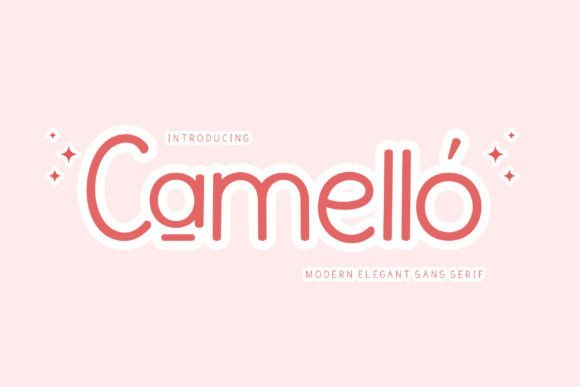
Introduction to Camello Font
Introducing β€œCamello” – a modern sans serif font that blends elegance with a touch of girly charm.
With its sleek and contemporary design, Camello is the perfect choice for projects that require a sophisticated yet playful aesthetic .